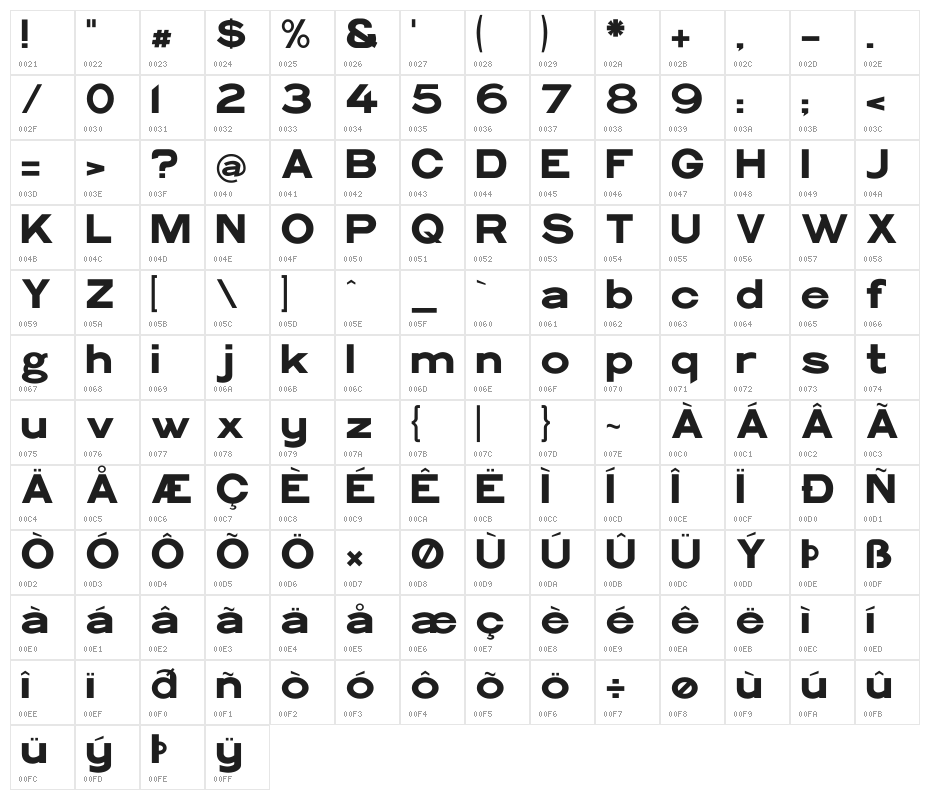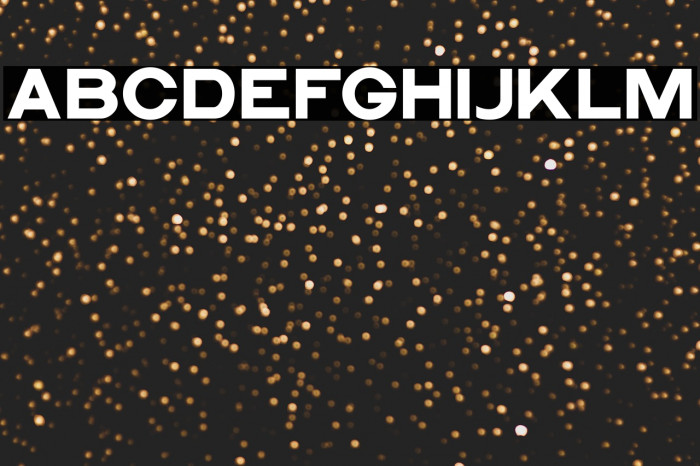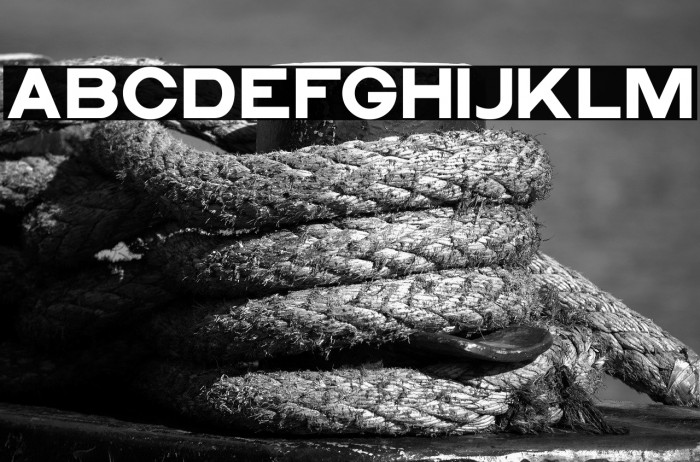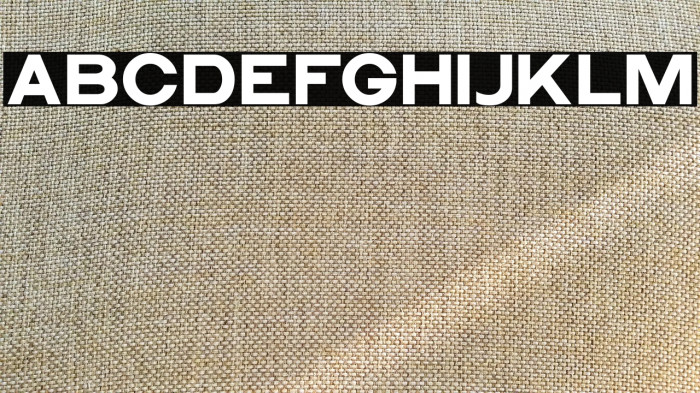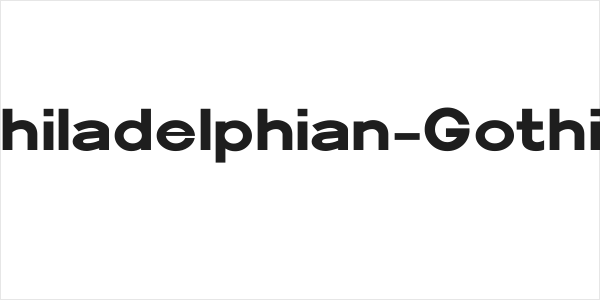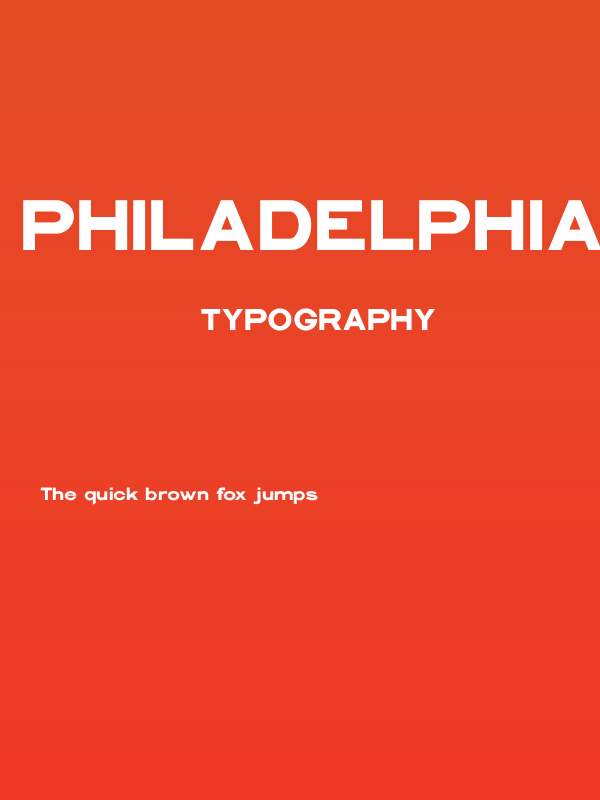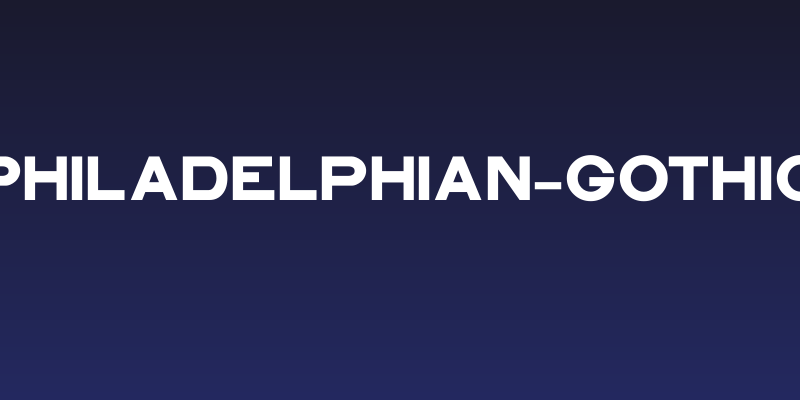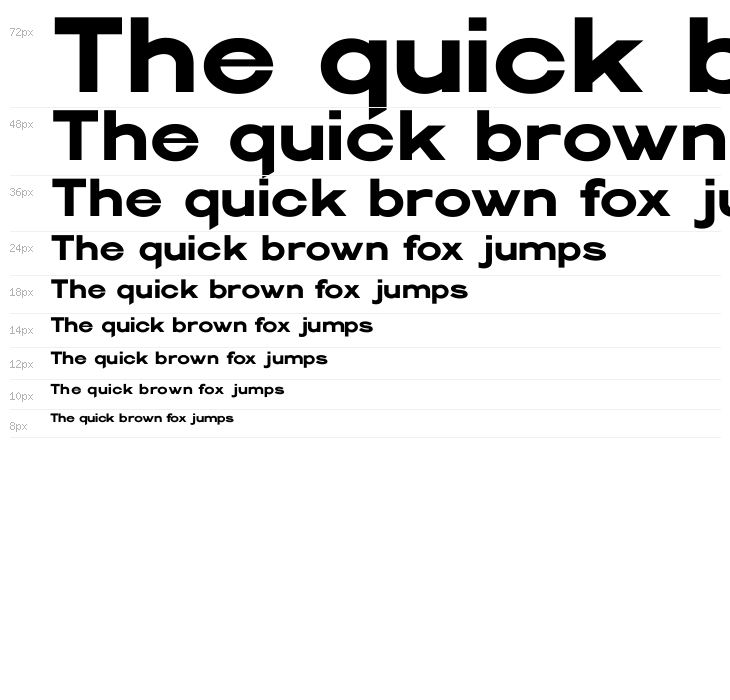
Philadelphian-Gothic Font
Philadelphian-Gothic Description
This typeface features bold, geometric letterforms with a strong presence. The uppercase letters are uniform and structured, while the lowercase letters maintain a consistent roundness, offering a modern and clean aesthetic. The numerals are equally bold, ensuring readability and impact. Special characters are designed to match the overall boldness, making them suitable for various applications. The font's style is versatile, fitting well in both digital and print media, and it stands out due to its clear, no-nonsense design.
| Proposed Projects | Ideal for branding, headlines, posters, and digital media where a strong, modern presence is desired. |